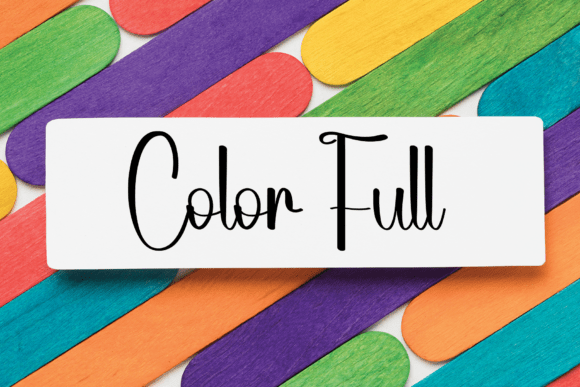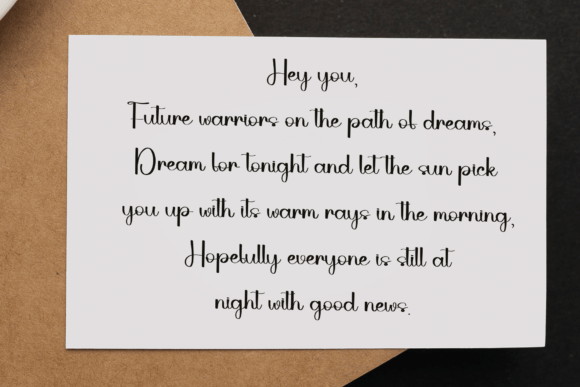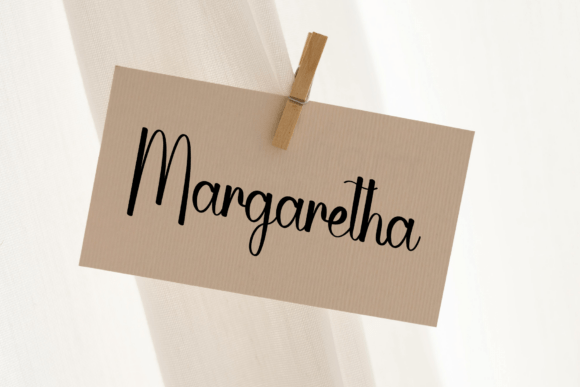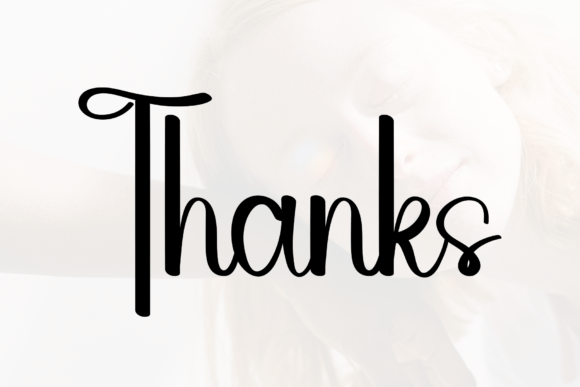
Creative Valentine Font: Add a Touch of Sweetness to Your Designs
Are you looking for a font that can add a cozy accent to your design projects? Look no further than the Creative Valentine Font! This sweet and beautiful handwritten font is perfect for designers and crafters who want to create unique and eye-catching designs for Valentine’s Day or any other occasion.
What Makes Creative Valentine Font Special?
Creative Valentine is a sweet and beautiful handwritten font that features characters that dance along the baseline. This distinctive feature gives the font a playful and whimsical feel that’s perfect for creating designs that are both fun and romantic. The font’s handwritten style also makes it look friendly and approachable, making it ideal for designs that require a personal touch.
Whether you’re a designer or crafter, Creative Valentine Font is a great addition to your font collection. The font’s versatility makes it suitable for a wide range of design projects, from Valentine’s Day cards and invitations to social media graphics and blog posts. You can use it to create:
- Valentine’s Day cards and invitations
- Blog posts and articles
- Digital papers and journals
- Party decorations and signage
Key Features of Creative Valentine Font
Here are some key features that make Creative Valentine Font a great choice for your design projects:
- Handwritten style: The font’s handwritten style gives it a personal and friendly feel.
- Characters that dance along the baseline: This distinctive feature adds a playful and whimsical touch to the font.
- Cozy accent: The font adds a cozy accent to any design project, making it perfect for creating warm and inviting designs.
- Versatile: The font is suitable for a wide range of design projects, from digital designs to print materials.
Tips for Using Creative Valentine Font
Here are some tips for using Creative Valentine Font in your design projects:
- Pair it with other fonts: Pair Creative Valentine Font with other fonts to create a unique and eye-catching design.
- Experiment with colors: Experiment with different colors to find the perfect combination that matches your brand or design style.
- Use it for headings and titles: Use Creative Valentine Font for headings and titles to add a touch of sweetness and whimsy to your designs.
- Make it your own: Don’t be afraid to get creative and make the font your own by adding your own personal touch.
Creative Valentine Font is a sweet and beautiful handwritten font that’s perfect for designers and crafters who want to add a cozy accent to their design projects. With its distinctive features and versatile style, this font is sure to become a favorite in your font collection. So why not give it a try and see how it can elevate your designs?